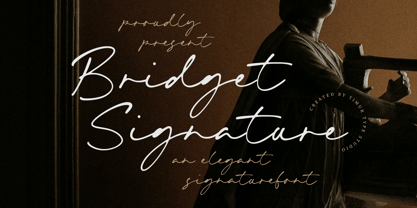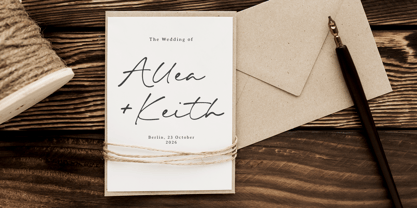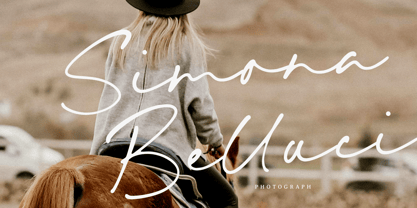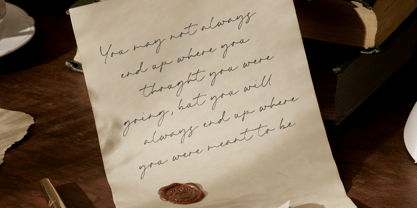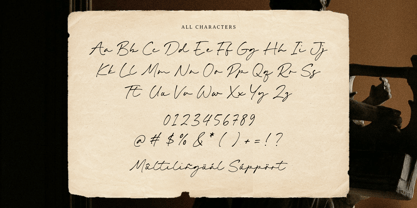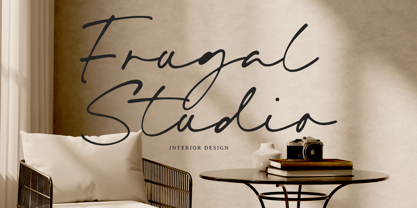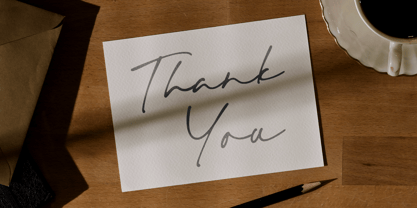
Bridget Signature
by Timurtype
The Bridget Signature Font Family was designed by Wara Sigit Tri Pamungkas and published by Timurtype. Bridget Signature contains 1 styles. More about this family
Introduced by Timurtype Studio!
Bridget Signature is a Elegant Signature Font
This font is an elegant and stylish script font that mimics the fluidity of natural handwriting. With its smooth curves, delicate strokes, and sophisticated flair, it’s perfect for logos, branding, invitations, and any design that calls for a touch of luxury and charm.
Bridget Signature Font also supports multilingualism
Designers: Wara Sigit Tri Pamungkas
Foundry: Timurtype